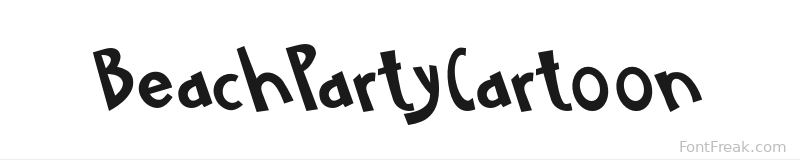
BeachPartyCartoon
Introducing the BeachPartyCartoon font by Galdino Otten Fonts, a delightful display typeface that embodies a fun, carefree vibe perfect for a variety of creative projects. This font, classified as a decorative typeface, features playful letterforms that convey a sense of whimsy and lightheartedness. The strokes exhibit a varied weight, with rounded edges that enhance its approachable character. The spacing between characters is generous, allowing for easy readability while maintaining a lively aesthetic.
Ideal for summer-themed graphics, the BeachPartyCartoon font shines in applications such as beach party flyers, children’s book covers, and vibrant event invitations. Its casual charm makes it an excellent choice for restaurant menus that aim to convey a relaxed atmosphere or for promotional materials targeting family-friendly activities. Graphic designers and content creators will find this font especially useful for designing playful social media posts or fun branding elements for businesses focused on leisure and recreation.
The target audience for this font includes graphic designers, small business owners, and content creators looking to add a unique touch to their projects. BeachPartyCartoon effortlessly captures the essence of summer fun and creativity, making it a versatile addition to any designer's toolkit.
What sets the BeachPartyCartoon font apart is its ability to evoke joy and nostalgia while remaining highly functional. Its free availability encourages experimentation and creativity, allowing users to incorporate it into various projects without worrying about licensing fees. For anyone seeking a typeface that combines style and playfulness, the BeachPartyCartoon font free download is an excellent choice that promises to elevate any design to new heights.